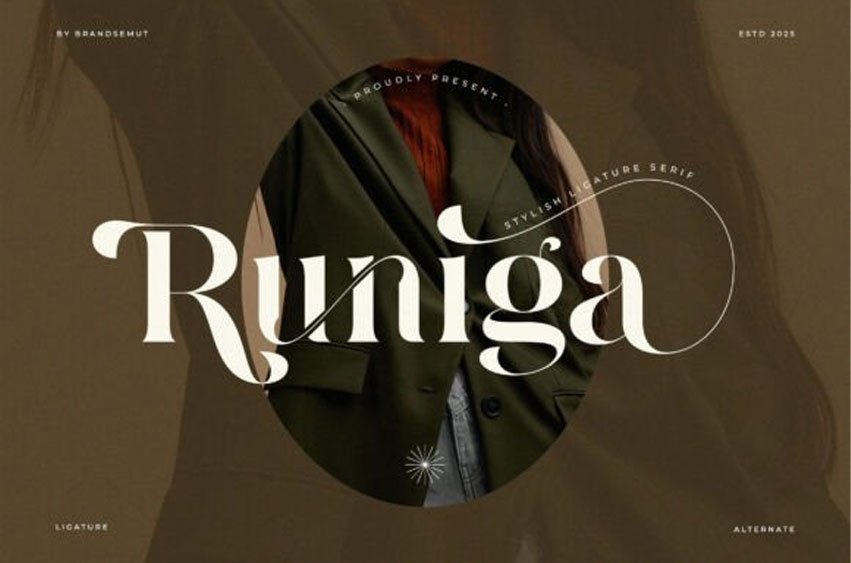
Runiga Font
Runiga Font is a refined and contemporary serif font that exudes sophistication through its graceful ligatures and elegant curves. Designed to blend classic charm with modern aesthetics, Runiga is the perfect choice for high-end branding, fashion editorials, wedding invitations, and luxury packaging.
Crafted for designers who seek a bold yet elegant serif, Runiga offers a harmonious balance between timeless style and modern detail. It includes a full set of uppercase and lowercase characters, stylish alternates, and distinctive ligatures — all carefully designed to elevate any composition with a touch of elegance.